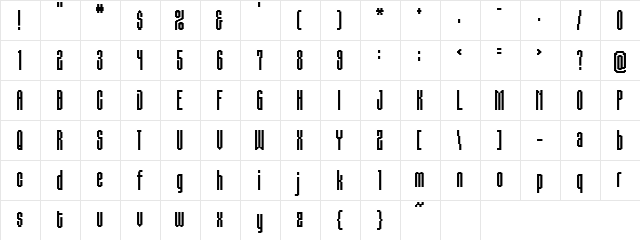
BM gaudi A22
Design Context for BM gaudi Typeface
BM gaudi offers clean, dependable letterforms without strong stylistic allegiance, making it a practical choice for designers who need flexibility.